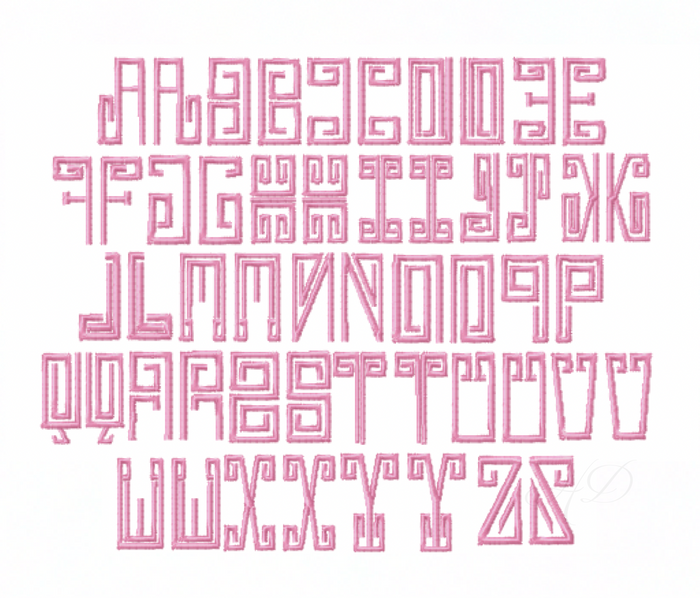
Square Greek Font Satin Embroidery Font
Transform your crafting projects with the Square Greek Font Satin Embroidery Font. This elegant single-color satin stitch font features an impressive selection of 78 characters, including 26 left, 26 right, and 26 center letters. Perfect for personalization, this font is a versatile addition to your embroidery toolkit.